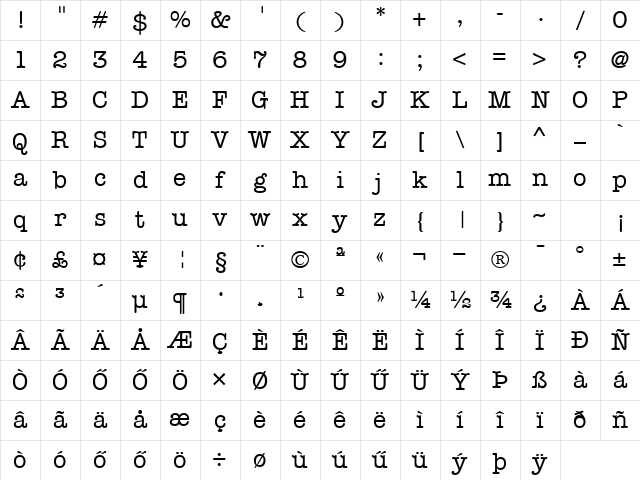
Complete HAmerican Typewriter Normal glyph index. Displaying only characters natively supported by HAmerican Typewriter Normal font.
HAmerican Typewriter uses fixed-width spacing throughout, giving it the structured, systematic character associated with coding environments and technical documentation.
Pro Tip: Use HAmerican Typewriter with slightly increased line-height for extended reading - fixed-width spacing can feel dense in longer passages without extra breathing room.